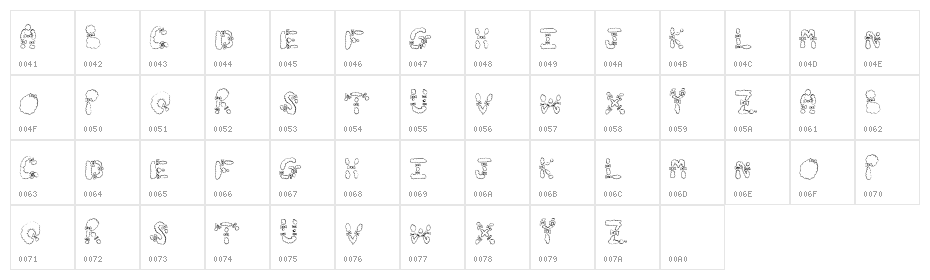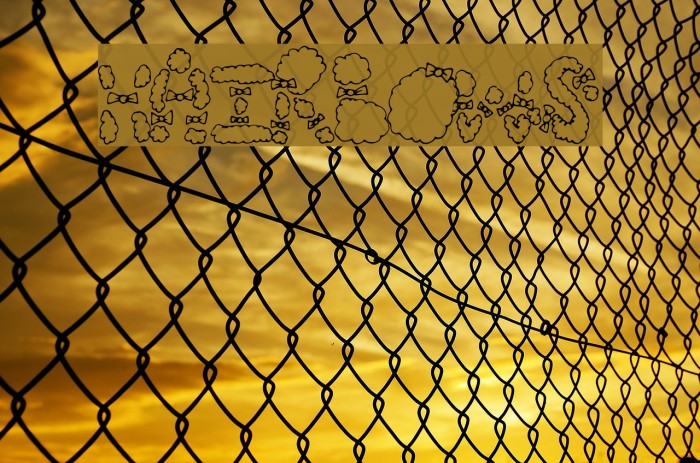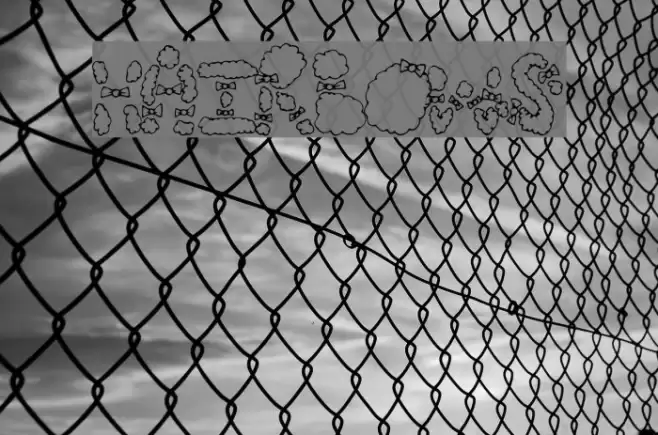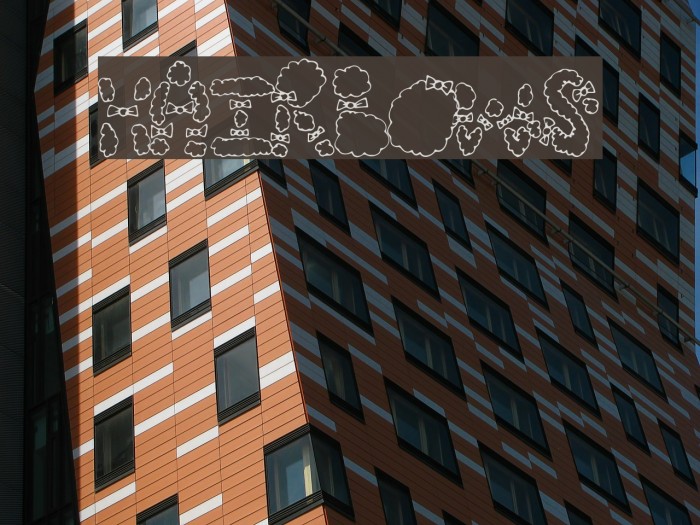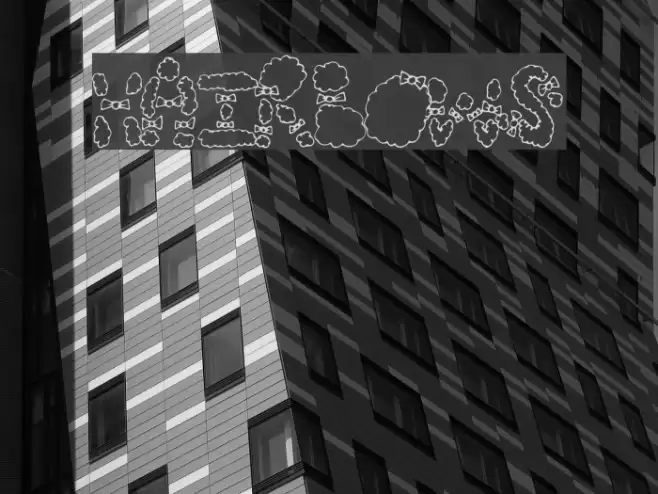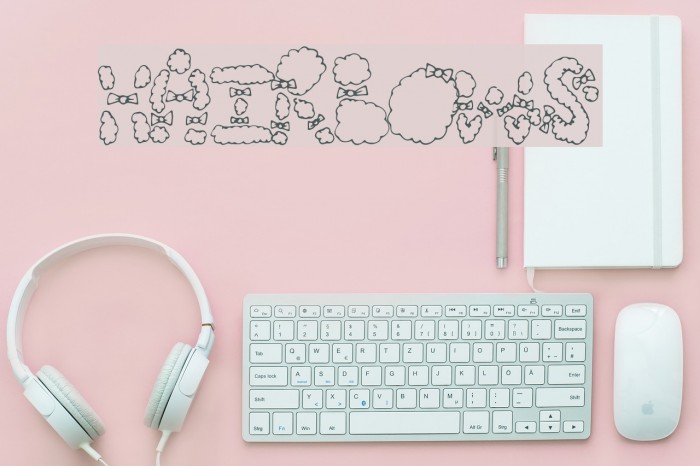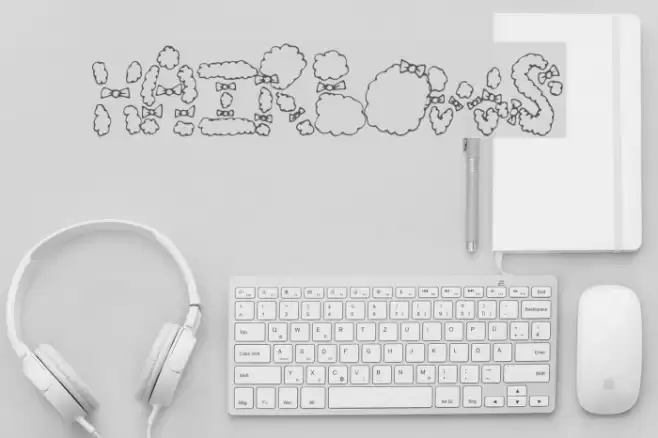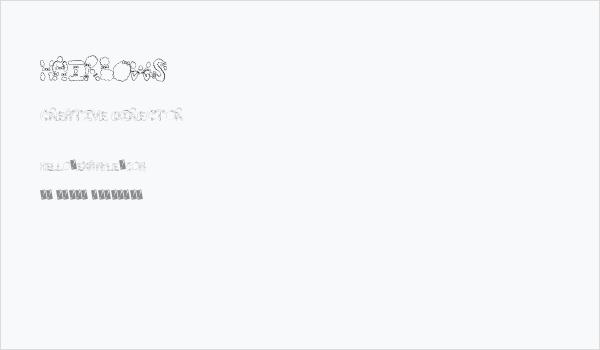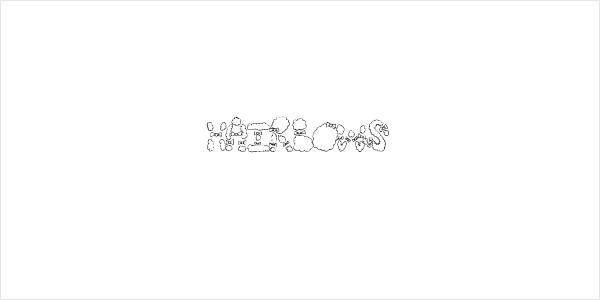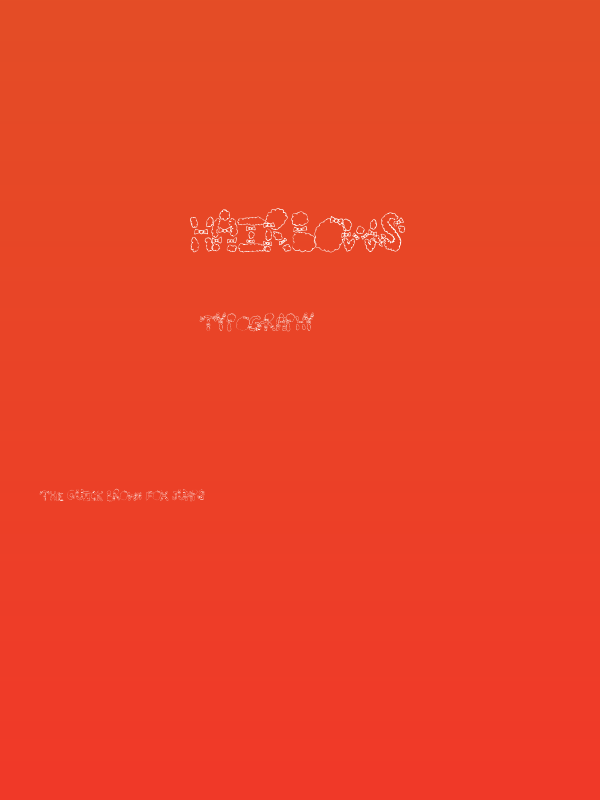
HairBows Font
HairBows Description
This playful and whimsical font features characters adorned with fluffy, cloud-like textures and bow accents. Each letter is uniquely crafted to resemble a combination of soft, rounded shapes and decorative elements, creating a lighthearted and fun appearance. The font maintains a consistent style across both uppercase and lowercase letters, as well as numbers and special characters. The overall design is reminiscent of a child's drawing or a playful doodle, making it ideal for projects that require a touch of creativity and imagination. The font's unique style is sure to capture attention and evoke a sense of joy and playfulness.
| Use Case | Headlines, Logos, Decorative text |